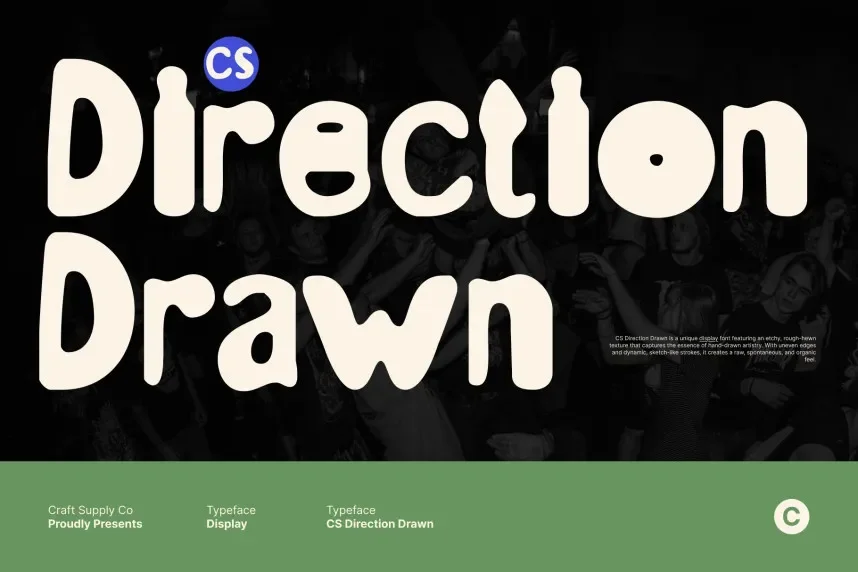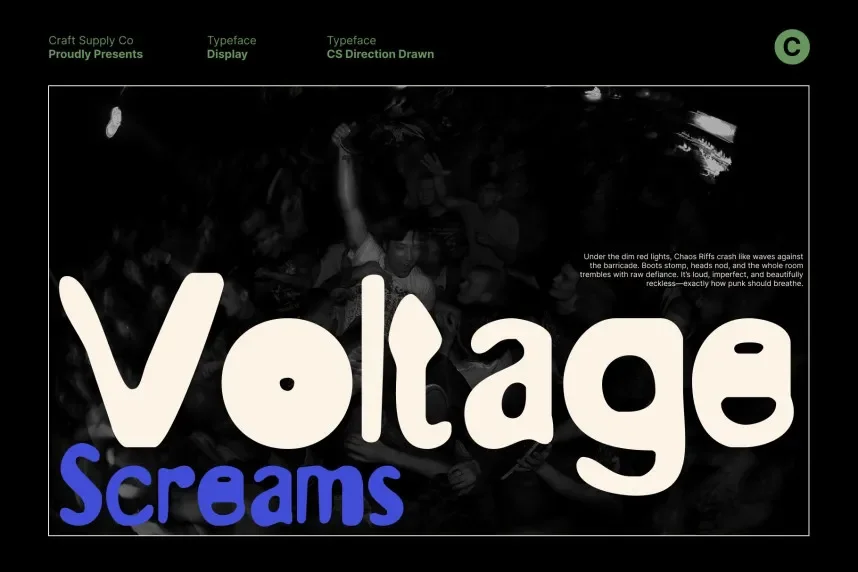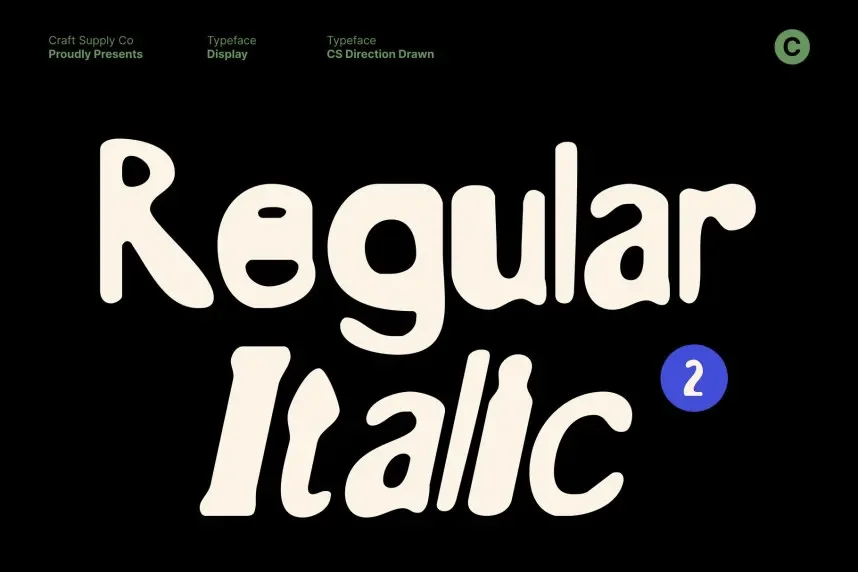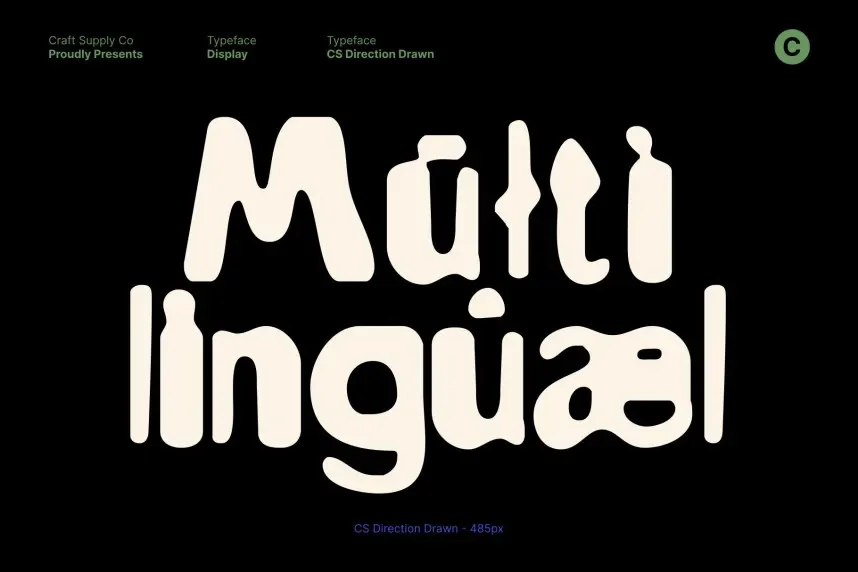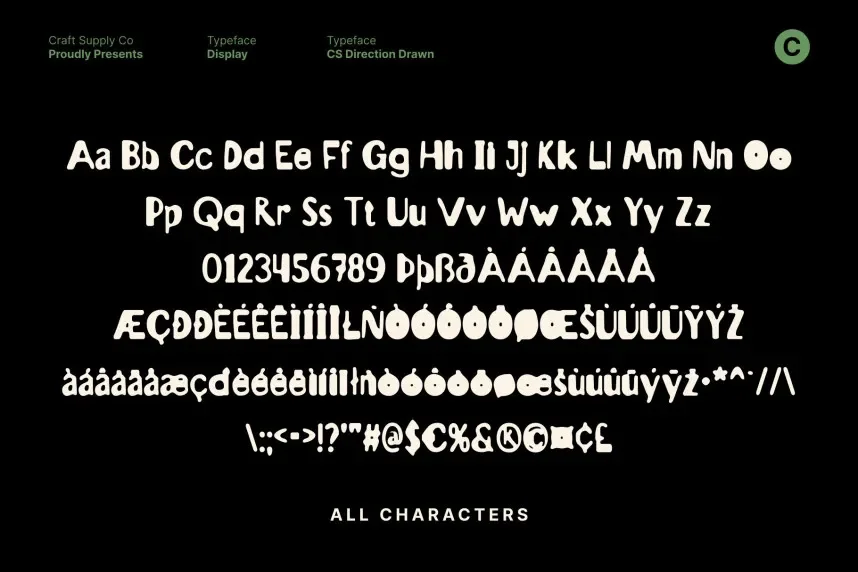
CS Direction Drawn Font addresses the need for a creative, hand-drawn font that adds direction and flow to designs while keeping them readable. It’s ideal for visually striking projects.
CS Direction is a display font with sharp, angular strokes and dynamic curves. The unique design creates a sense of movement and direction, making it stand out in creative works.